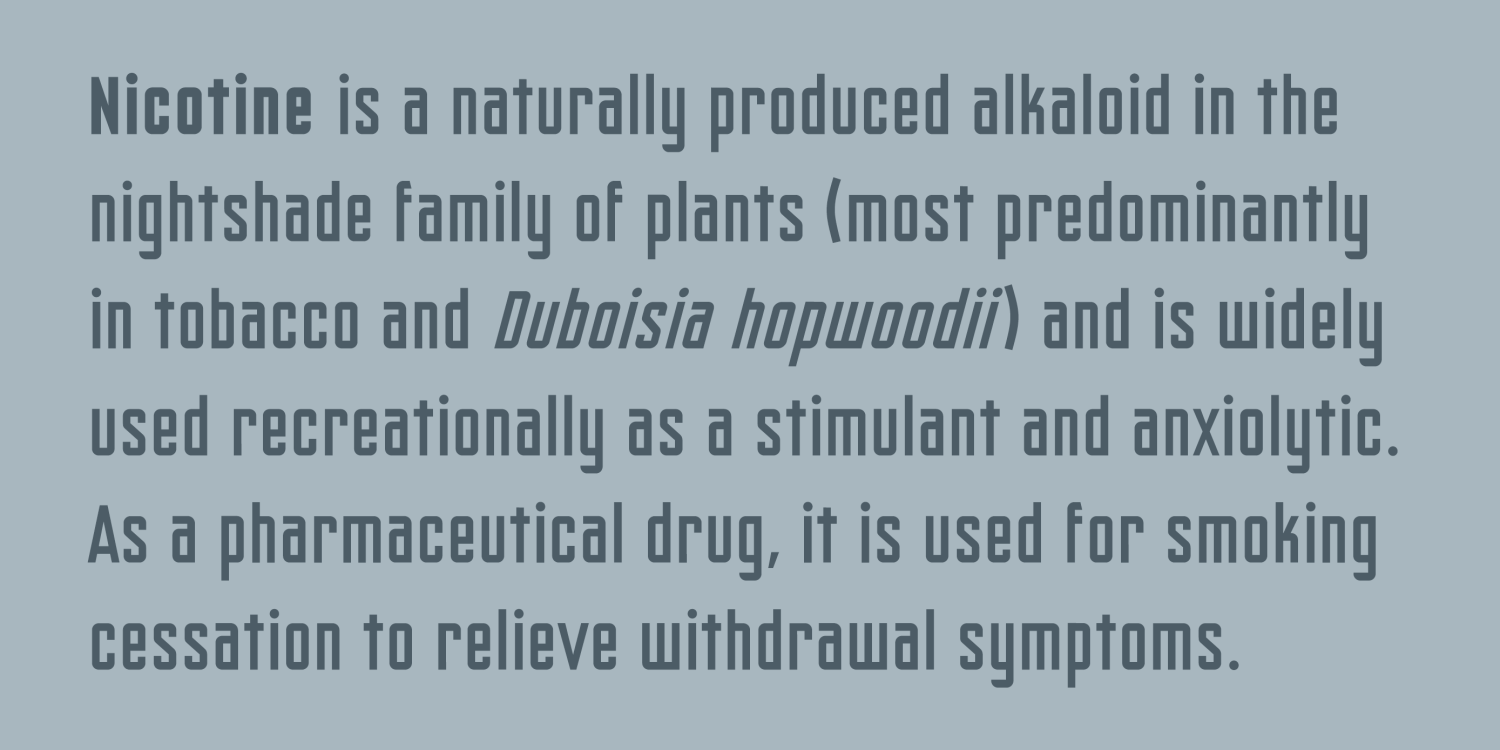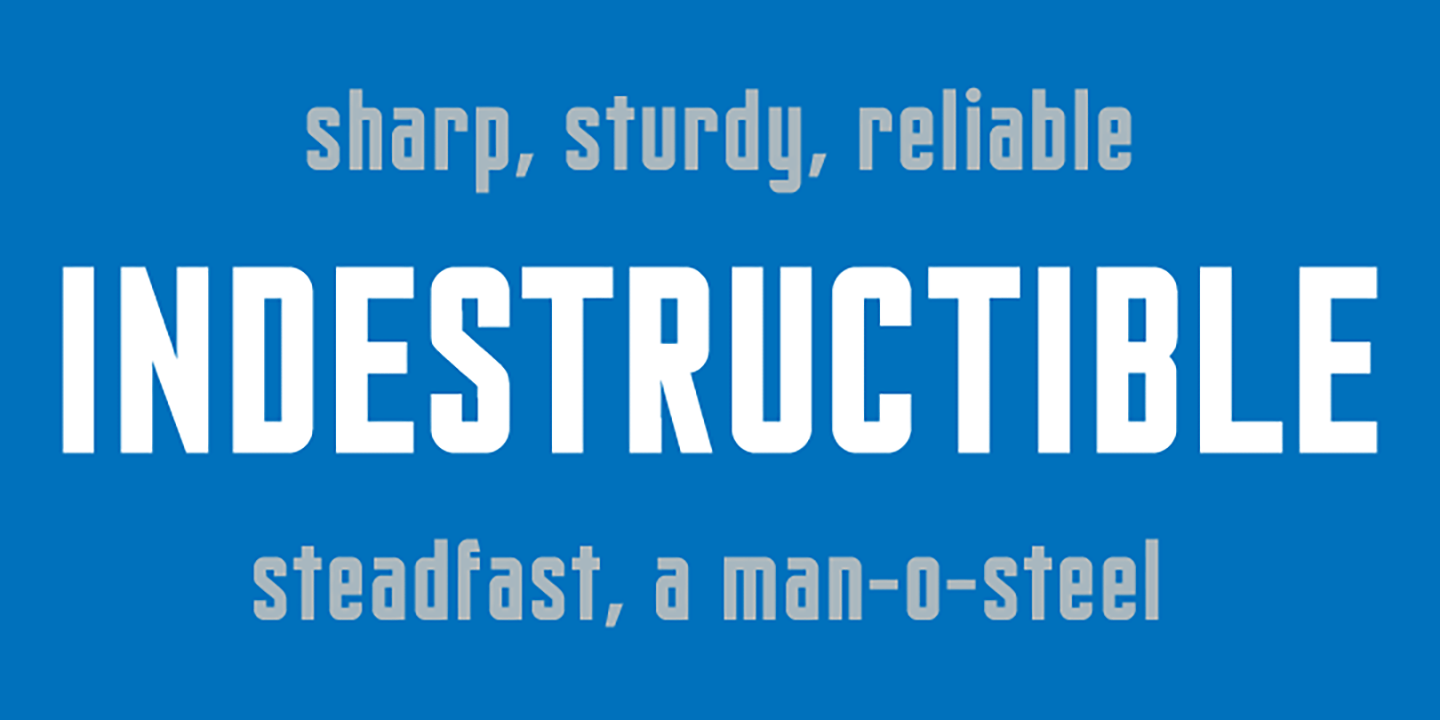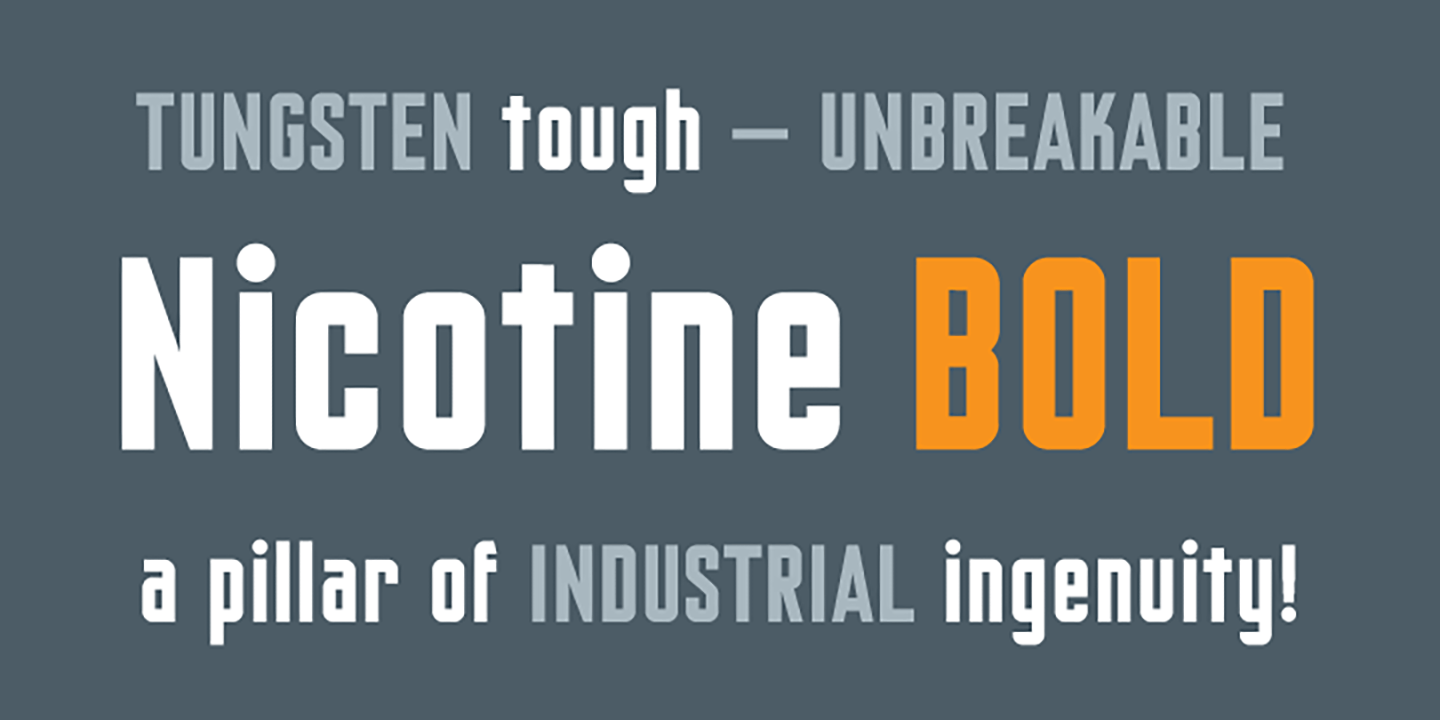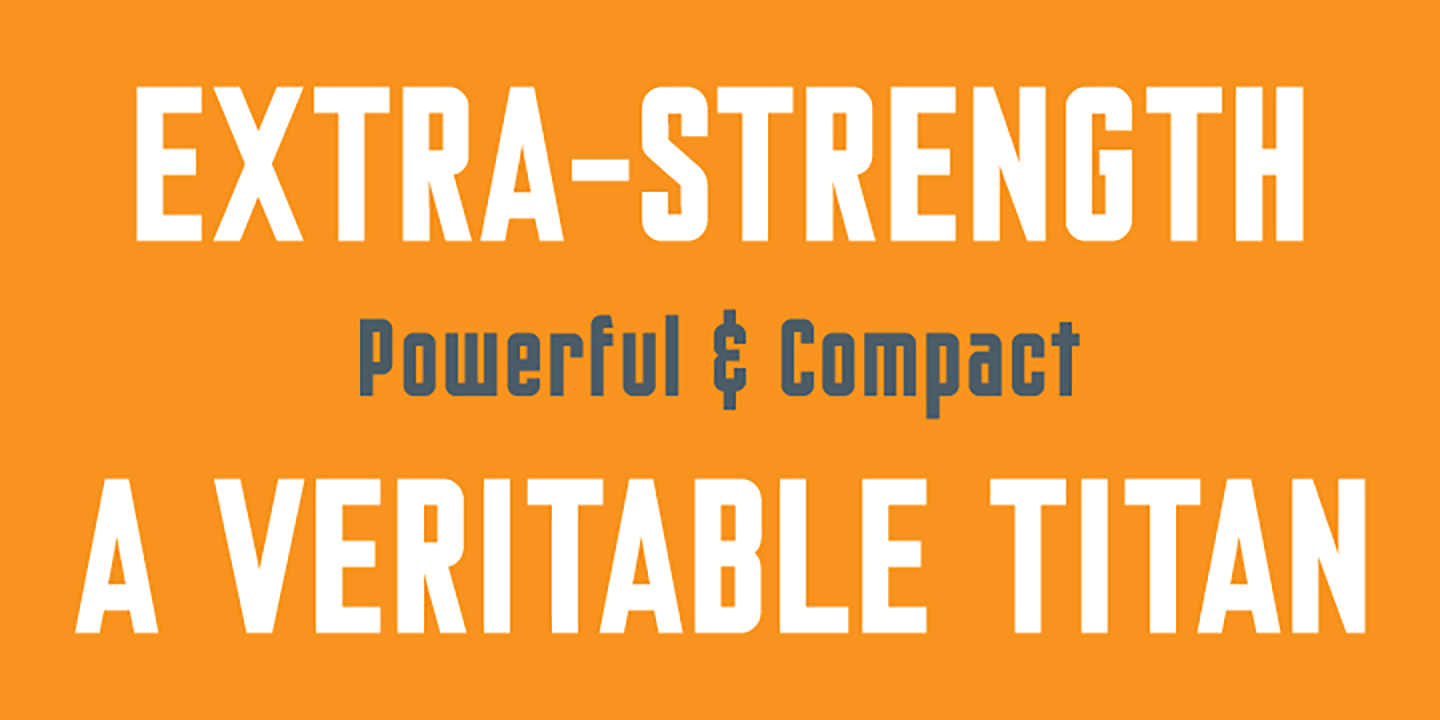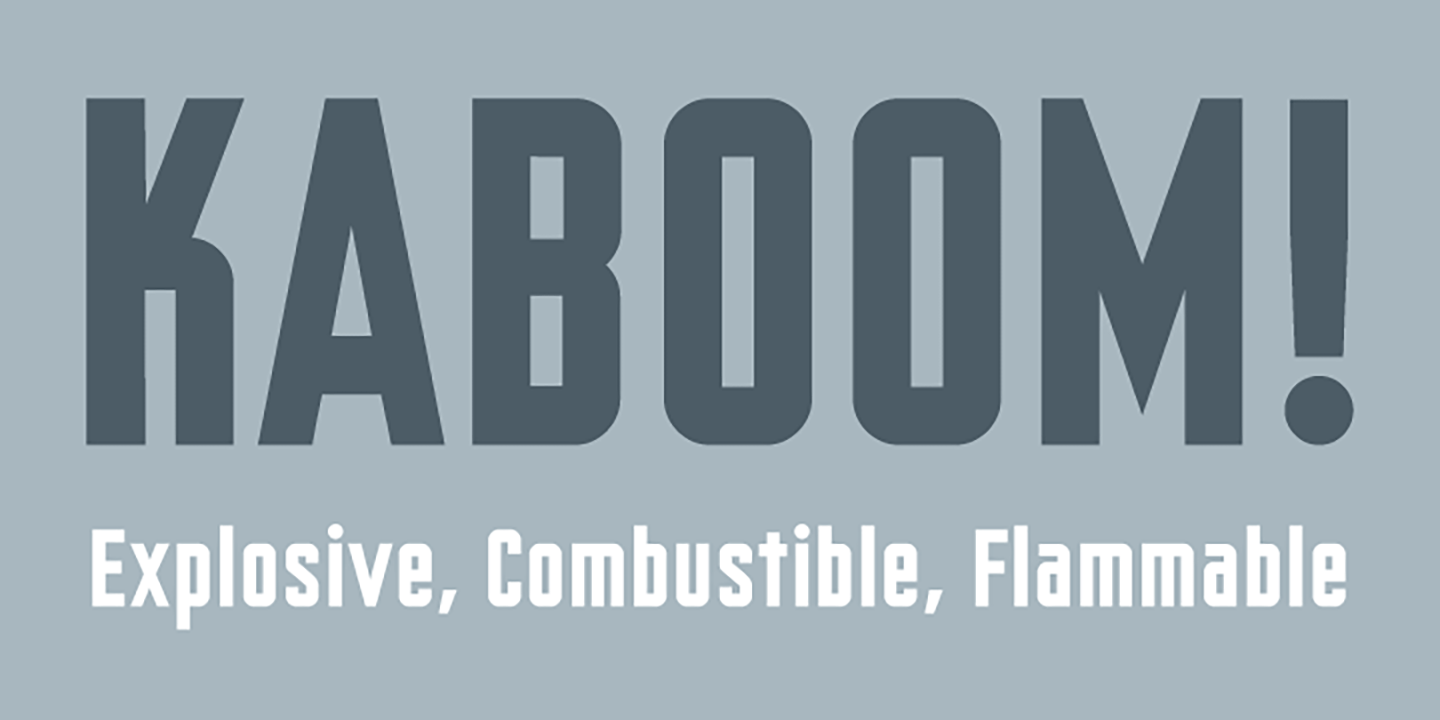
Nicotine
Font Family by Chank Co
Need to cram a zillion words on to a single page? Nicotine is your vice. Cram it. It's an industrial geometric manufacturing machine font. Italic can be used for extra emphasis. The condensed nature of the Nicotine fonts allows for impressive use at larger, poster sizes. Another interesting tidbit? The I in Nicotine is a silhouette of a traditional filtered cigarette; that's how the font got its name. But when you type a word in all caps it kinda looks like piano keys, too.